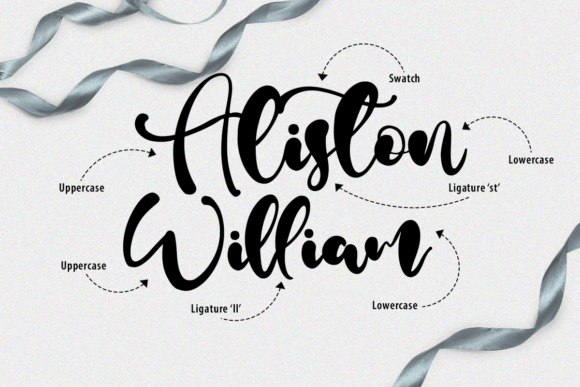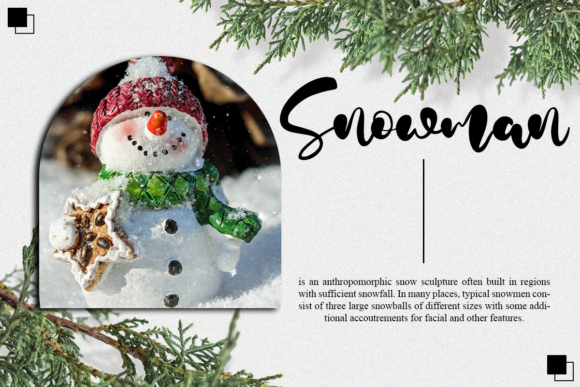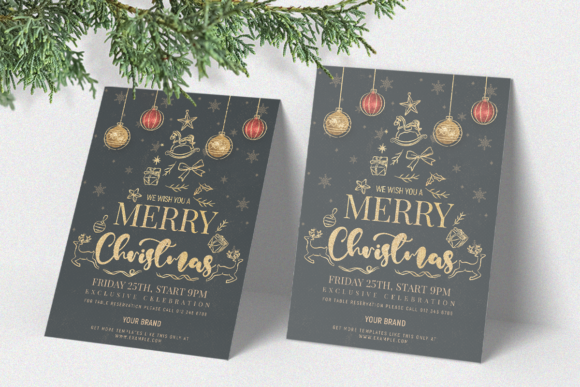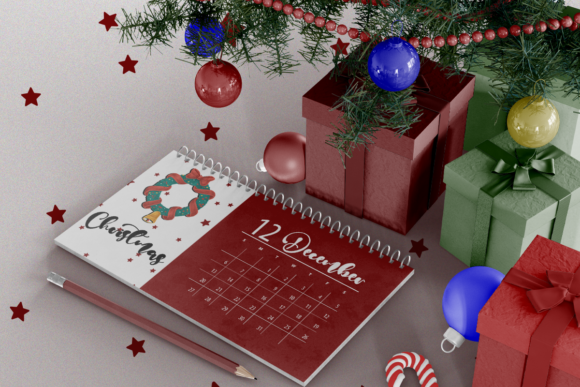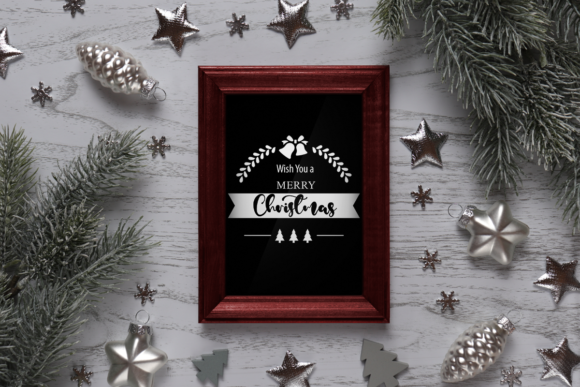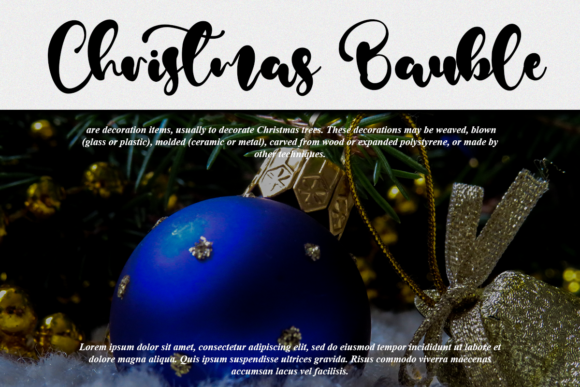
Introducing Adam Script Font: Elevate Your Designs with Elegance
Are you a designer or crafter looking for a font that exudes sophistication and modernity? Look no further than Adam Script Font. This stunning script font is designed to add a touch of class and elegance to any design project. With its refined and beautiful appearance, Adam Script Font is perfect for a wide range of applications, from logos and branding to invitations, stationery, wedding designs, social media posts, and more.
The Characteristics of Adam Script Font
Adam Script Font boasts a unique blend of classic and modern elements, making it a versatile choice for designers. Its elegant and refined appearance is characterized by:
- Beautifully crafted letterforms with intricate details
- A modern and sleek aesthetic that works well in digital and print applications
- Excellent legibility, making it perfect for body text and headlines
- A wide range of uses, from formal to informal designs
What Can You Use Adam Script Font For?
The possibilities are endless with Adam Script Font. Here are some ideas to get you started:
- Invitations and Stationery: Add a touch of elegance to your wedding invitations, birthday cards, and other stationery designs.
- Wedding Designs: Make your wedding designs truly unforgettable with Adam Script Font’s romantic and sophisticated feel.
- Social Media Posts: Elevate your social media game with stylish and engaging posts that showcase your brand’s personality.
- Packaging and Product Design: Add a touch of luxury to your product packaging and design with Adam Script Font’s modern and sleek aesthetic.
Why Choose Adam Script Font?
With so many fonts available, why choose Adam Script Font? Here are just a few reasons:
- Unique and Versatile: Adam Script Font is a one-of-a-kind font that can be used in a wide range of design applications.
- Elegant and Refined: This font exudes sophistication and elegance, making it perfect for designers who want to create high-end designs.
- Easy to Read: Adam Script Font is designed to be highly legible, making it perfect for body text and headlines.
- Constantly Updated: The font is regularly updated to ensure it stays relevant and fresh.
Tips for Using Adam Script Font
To get the most out of Adam Script Font, here are some tips to keep in mind:
- Pair it with a Sans-Serif Font: Combine Adam Script Font with a sans-serif font for a stylish and modern contrast.
- Use it for Headlines and Titles: Adam Script Font is perfect for headlines and titles, where its elegant and refined appearance can shine.
| Font Name | Adam Script Font |
| Author | staircasestudio20 |
Adam Script Font is a beautiful and refined script font that can elevate any design project. With its elegant and modern appearance, versatility, and ease of use, it’s perfect for designers and crafters who want to create high-end designs. Whether you’re working on a logo, invitation, wedding design, or social media post, Adam Script Font is sure to impress.